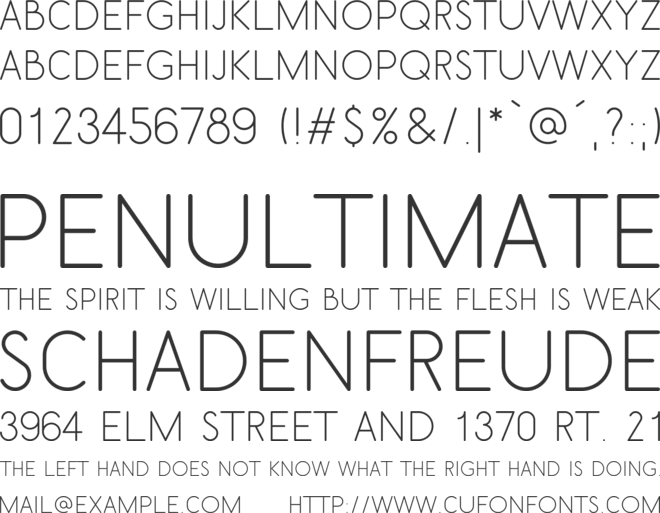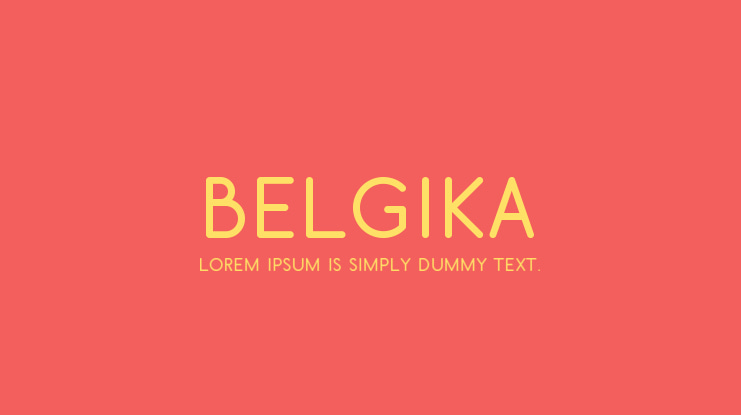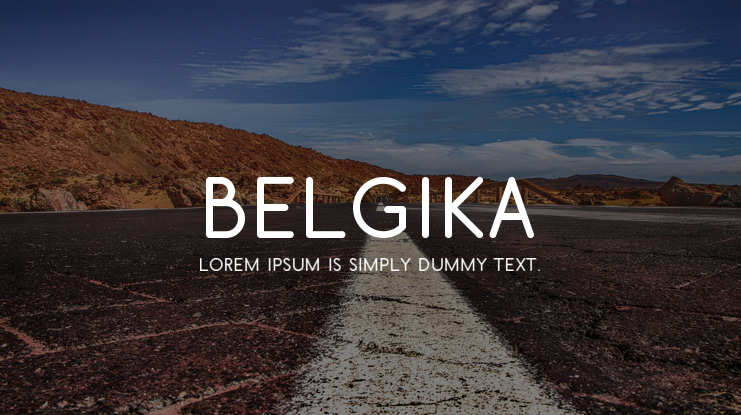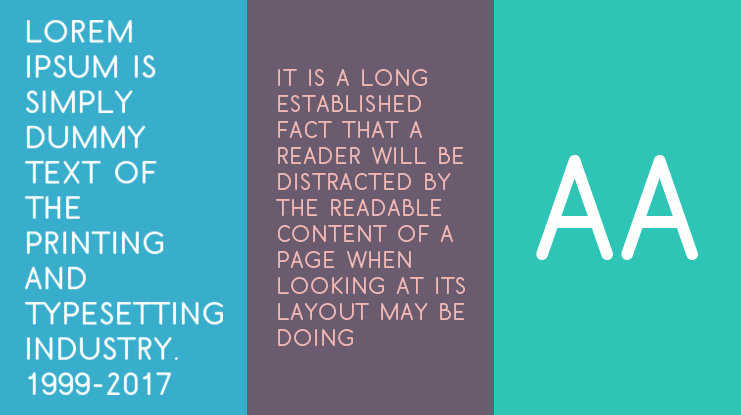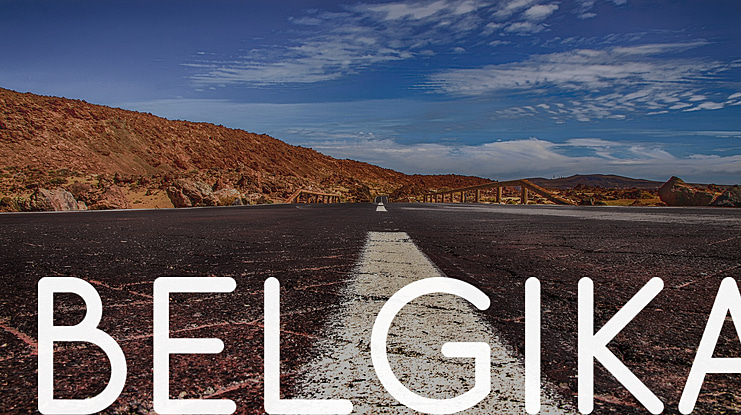
Belgika Font Family
A majuscule sans-serif font from OSP with uniform stroke widths, based on sundry generic sources. http://osp.kitchen/foundry/belgica-belgika/